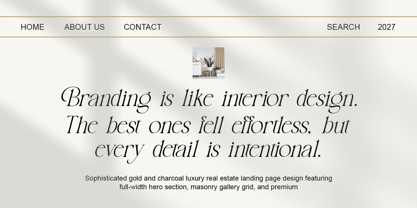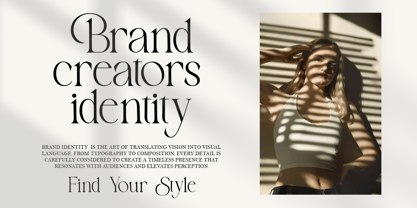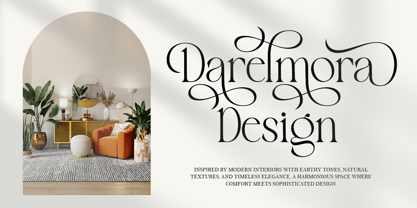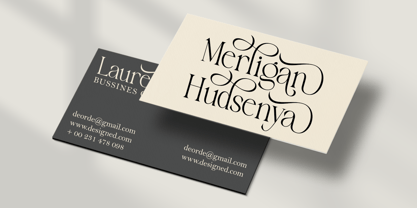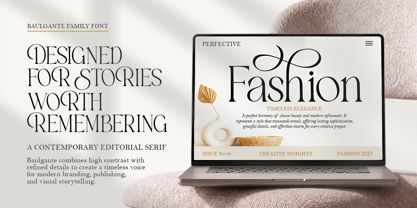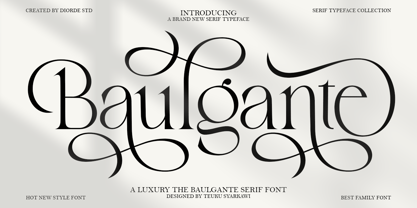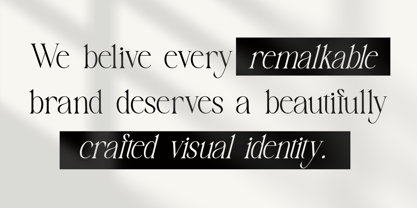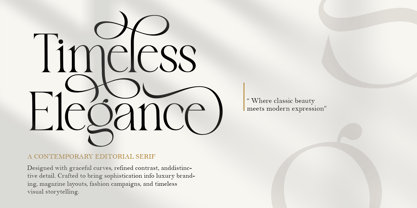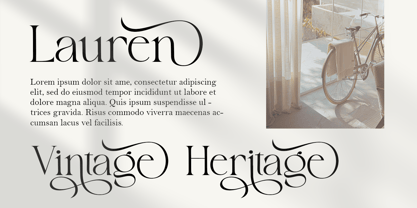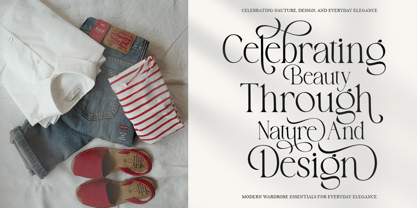
Baulgante
La familia tipográfica Baulgante fue diseñada por Teuku Syarkawi y publicada por Deorde Studio. Baulgante contiene 10 estilos y opciones de paquete familiar. Más información sobre esta familia
Baulgante is a refined serif typeface designed to bring a sense of elegance, romance, and timeless beauty into your work. With its graceful curves, high contrast strokes, and delicate details, Baulgante creates a luxurious look that feels both classic and modern.
This typeface comes in Regular and Slant styles, giving you the flexibility to create designs that feel polished, expressive, and full of character. Whether you're going for something soft and feminine or bold and editorial, Baulgante adapts beautifully.
What makes Baulgante stand out is its stylish Alternates and carefully crafted alternates, allowing you to create unique, high-end typography with ease. Every letter is designed to flow naturally, making your text look effortlessly elegant.
Perfect for: Luxury branding & logos, Wedding invitations, Fashion editorials & magazines, Beauty and lifestyle designs, Packaging design, Social media content, Headlines & display typography